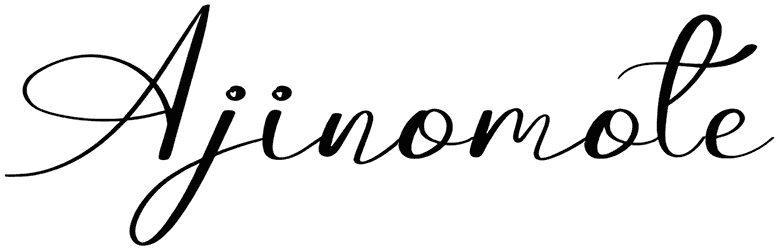
Ajinomote Font
Sometimes a graphic artist requires a classic script font, the same as Ajinomote, to take all of his editorial projects, including business cards, book covers, diplomas, gift cards, or blog posts, out of the box and demonstrate his own creative talent.
Due to its cursive style, reading some characters in this calligraphy font would be a little bit tricky for the audience. Still, considering the fact that it carries a sense of personalization and professionalism, that shortage is negligible.
Ajinomote is a neat and pretty handwritten font. It has nicely curved letters and a cursive flow that can enhance the look of any creation!